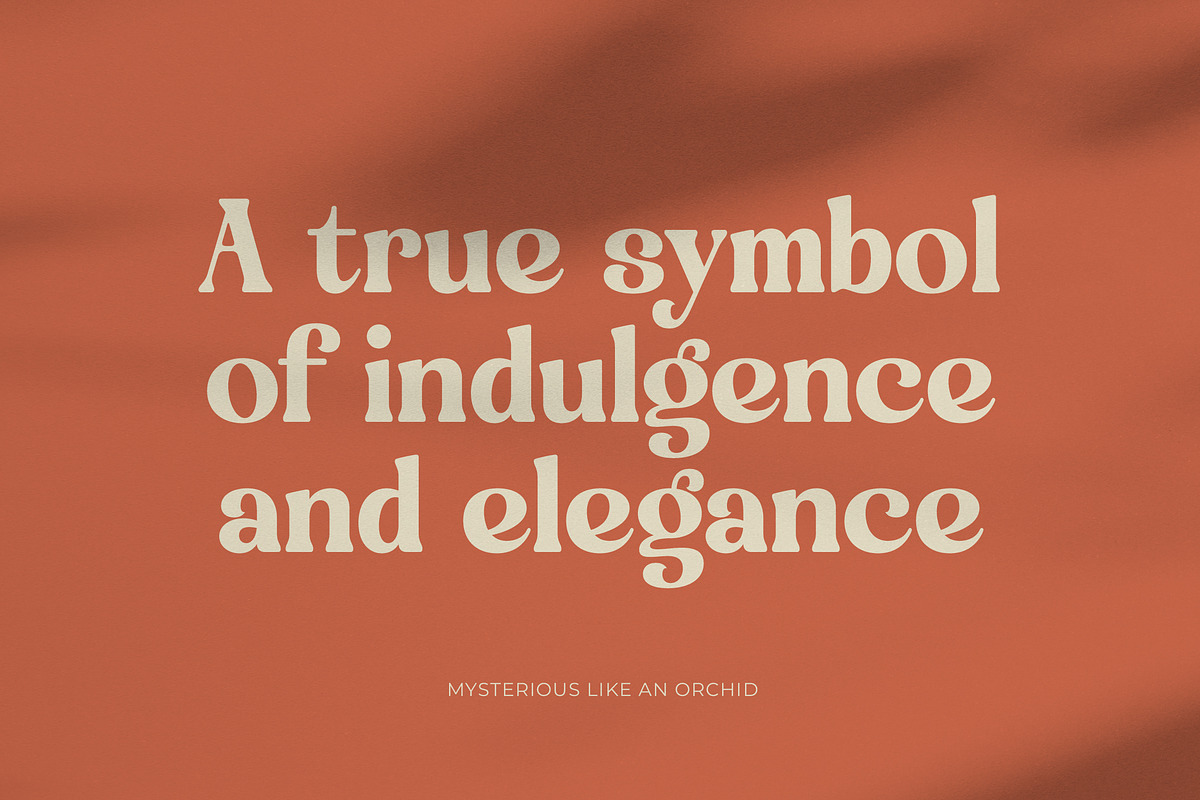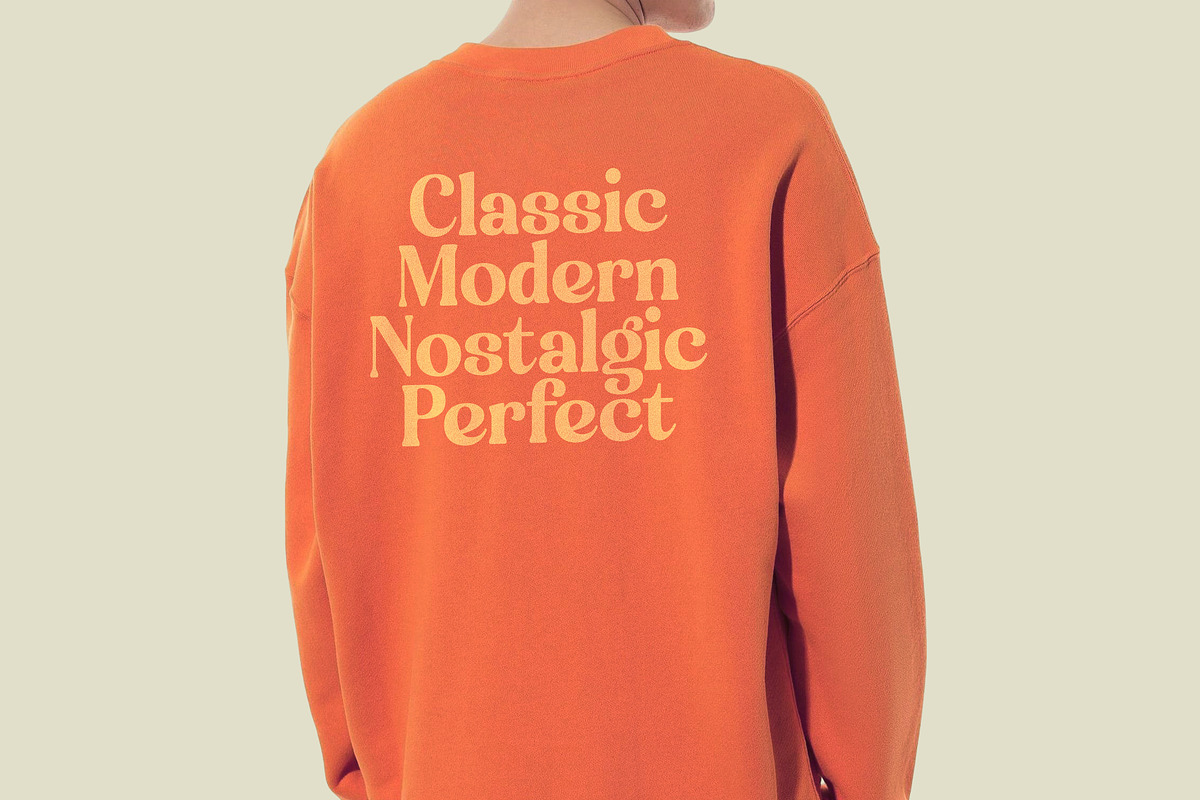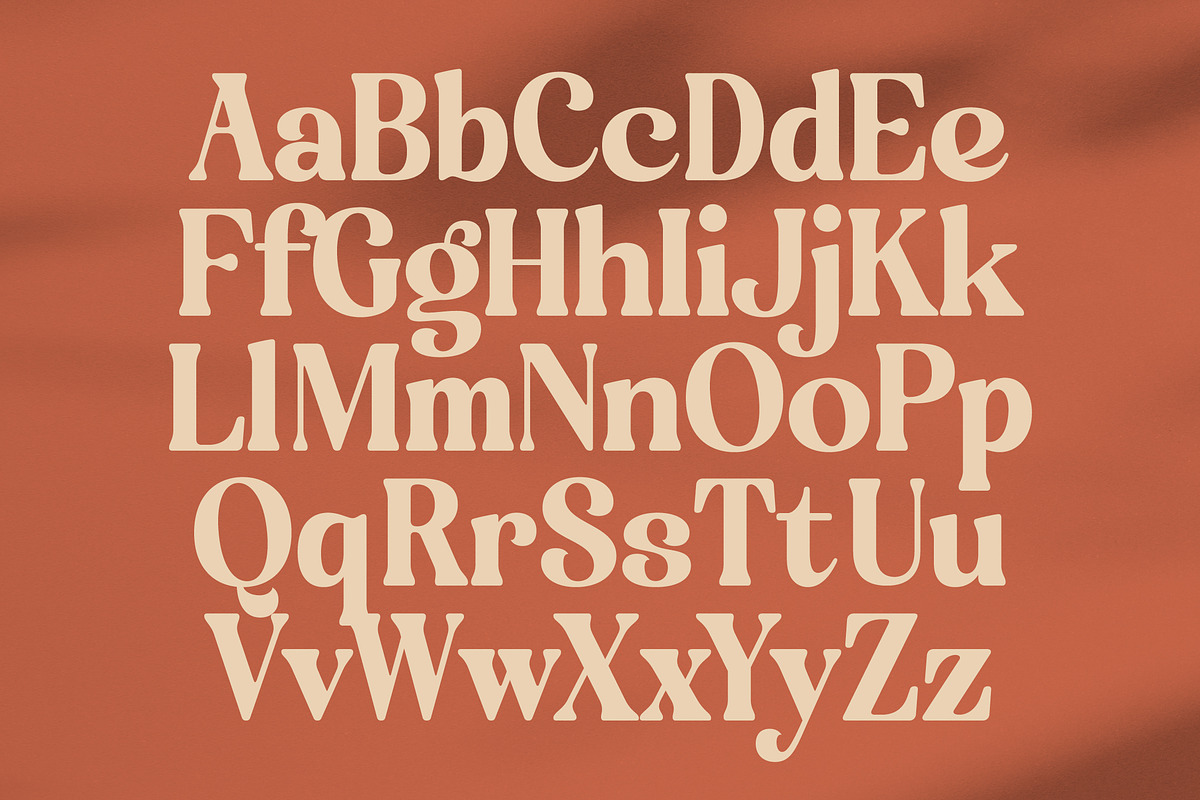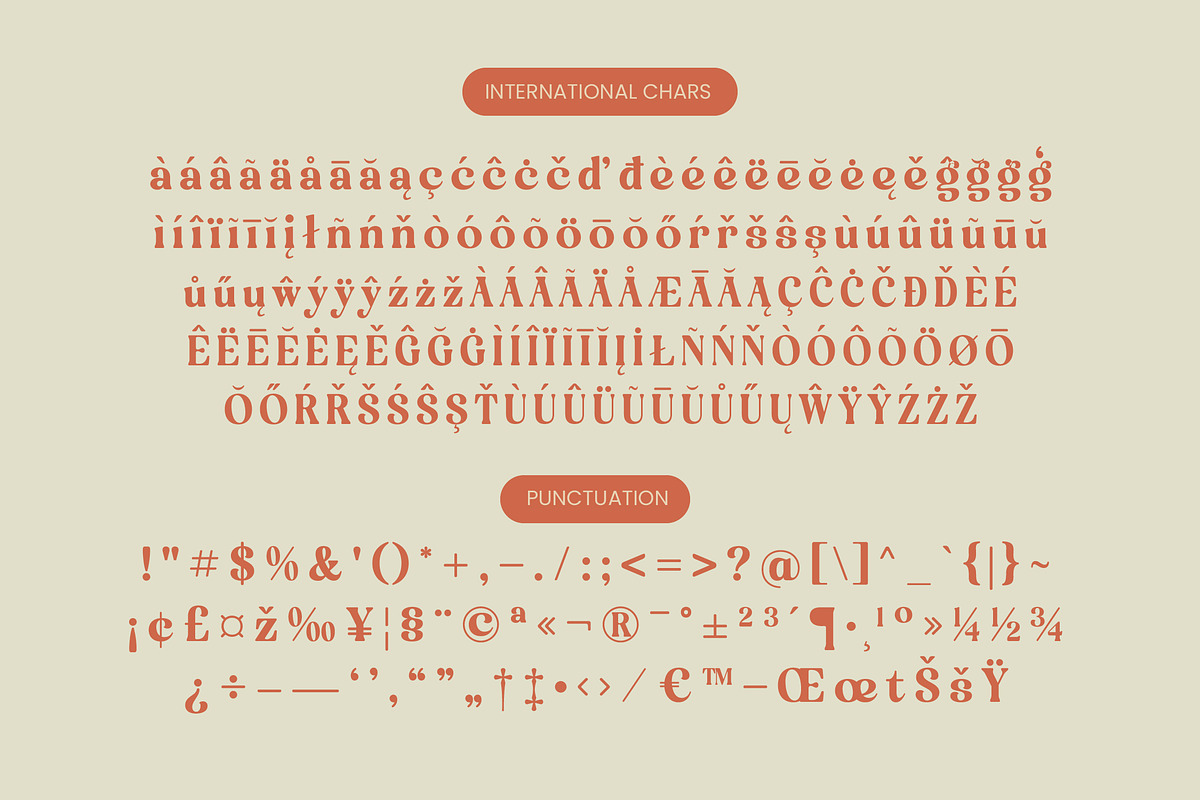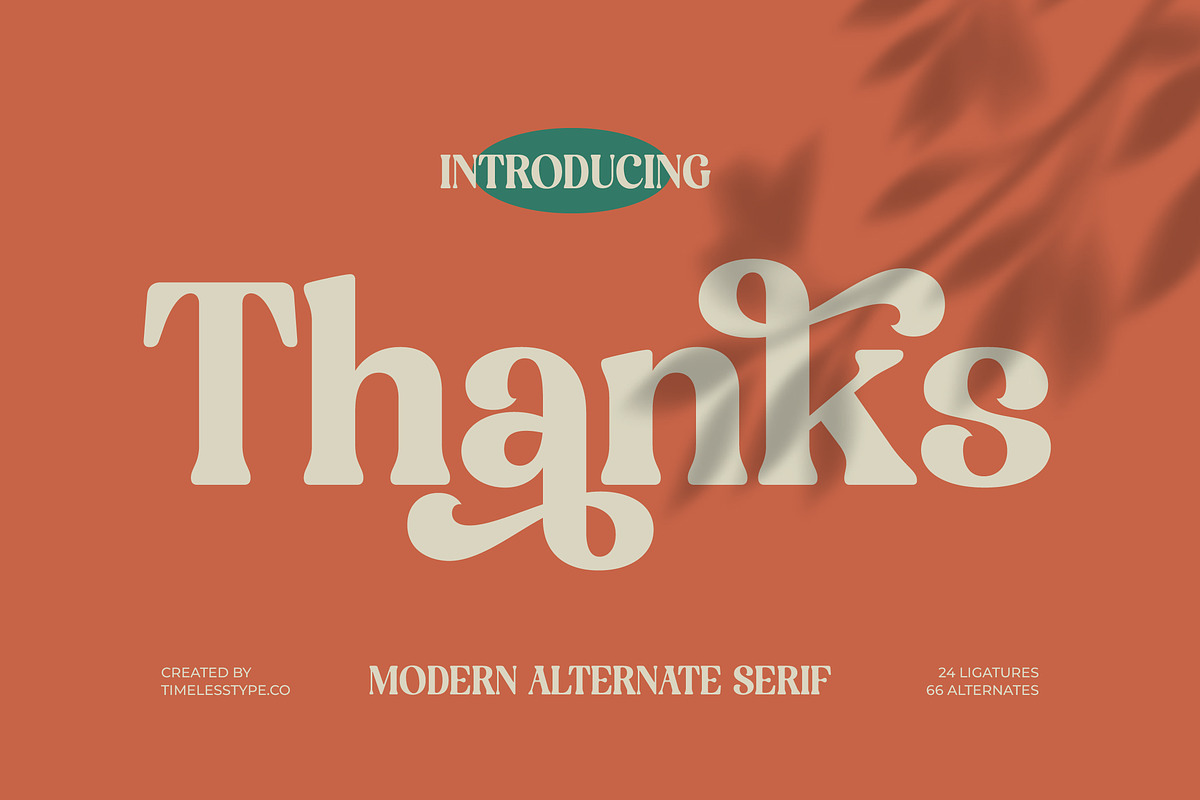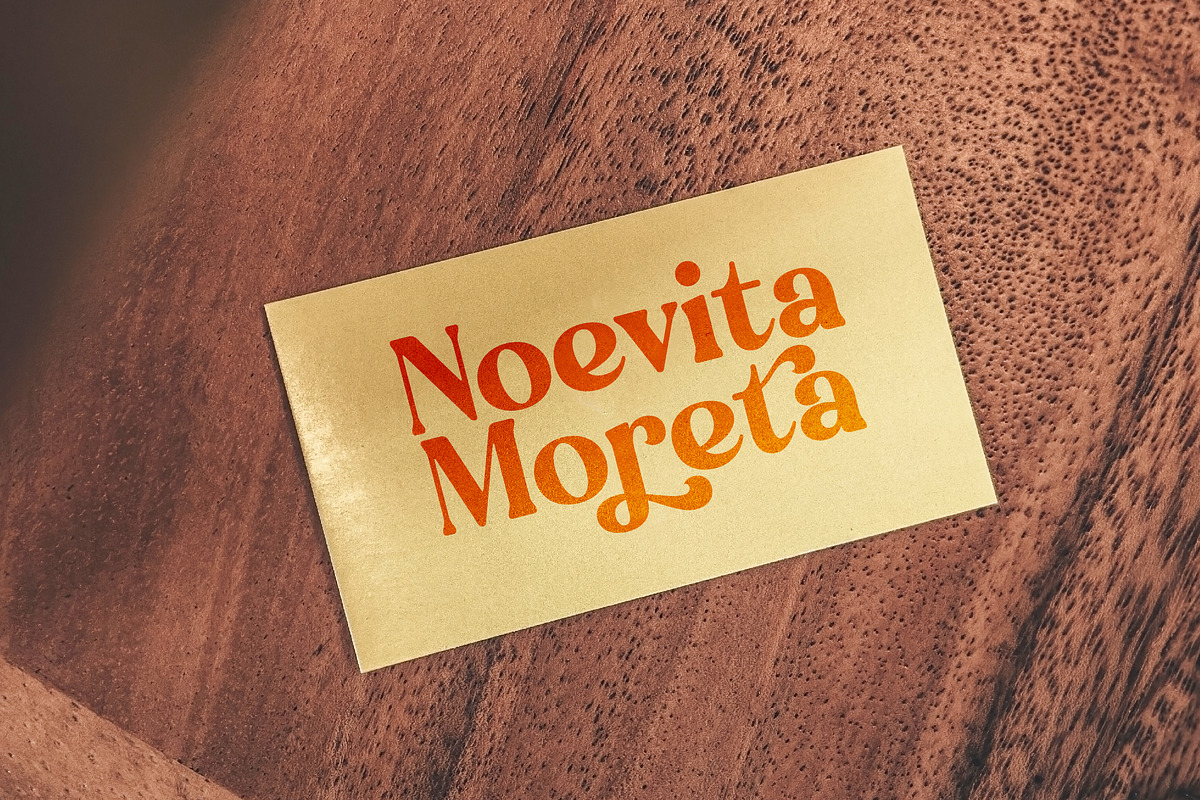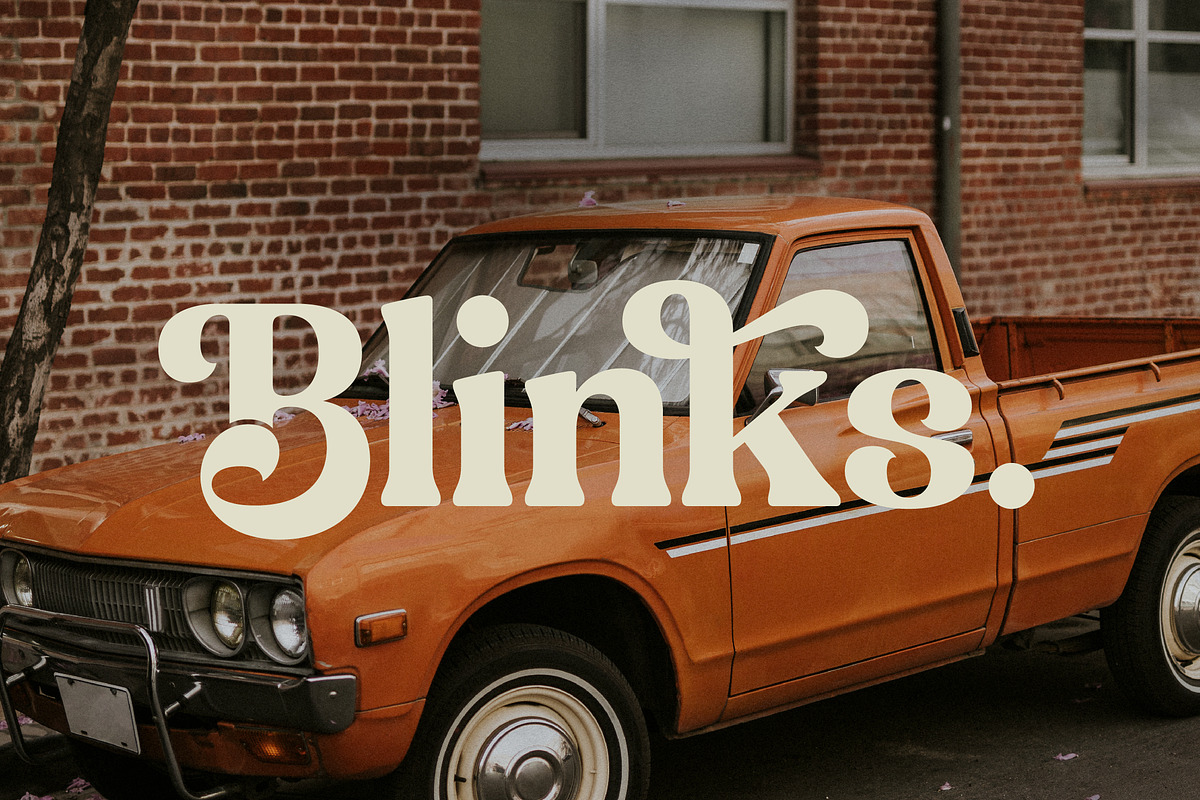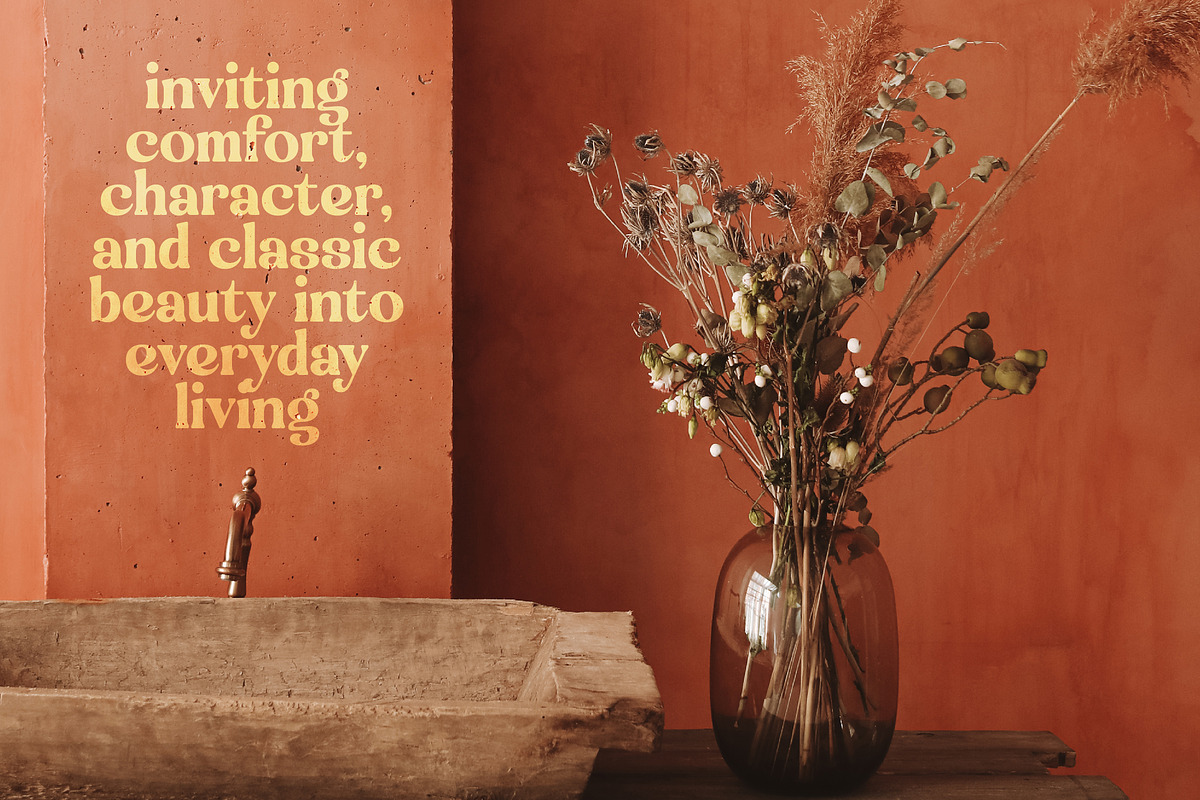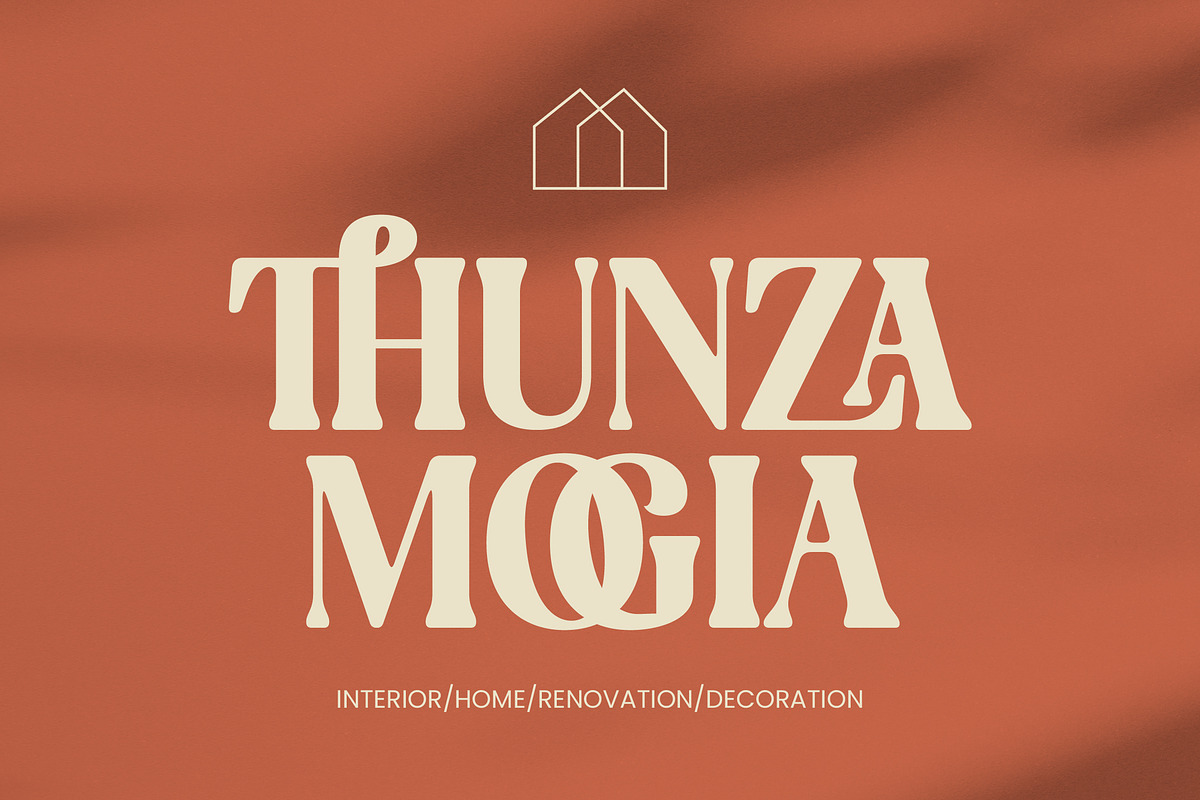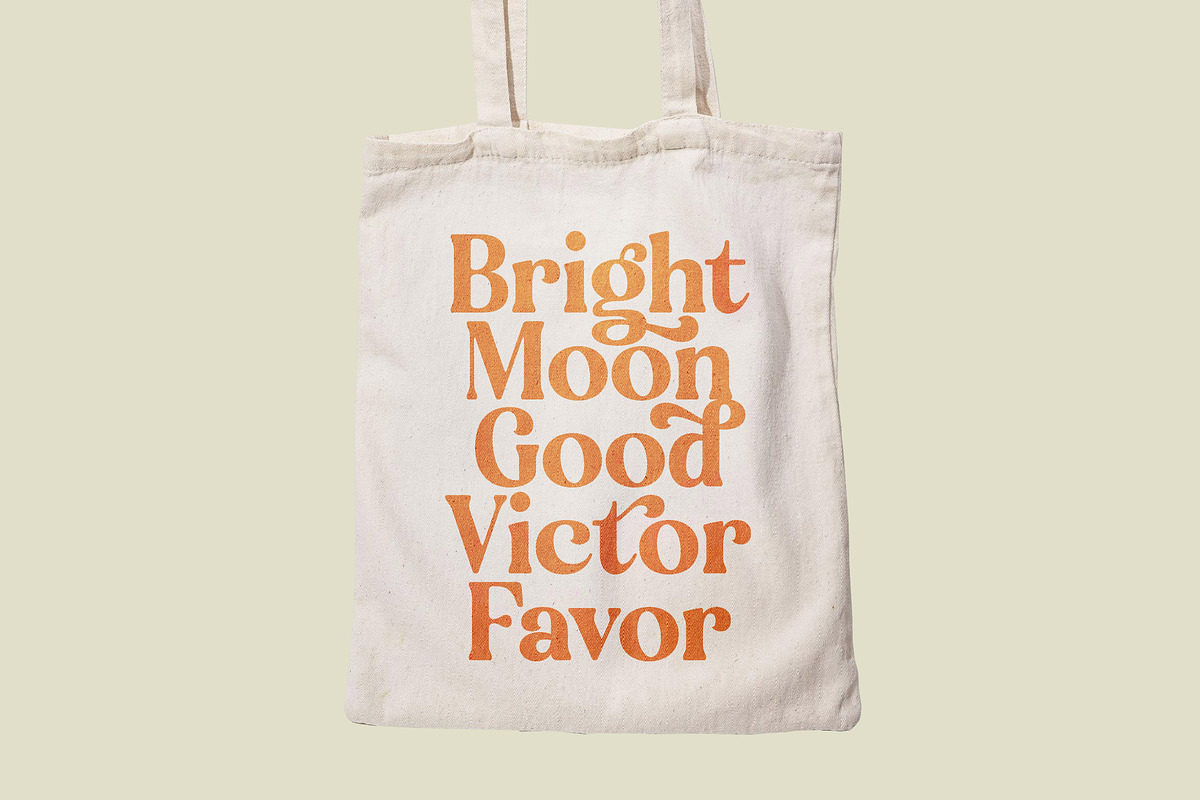
Engray Danton Modern Serif Font
Elevate your creative vision with Engray Danton, a masterclass in sophisticated typography that balances timeless elegance with contemporary flair. This typeface is designed to command attention while maintaining a whisper of classic grace in every stroke.
Inspired by the golden era of high-fashion magazine covers and vintage art deco signage, this font captures a unique intersection of nostalgia and futuristic minimalism. The rhythmic curves and sharp terminals create a visual atmosphere that feels both lived-in and refreshingly new.
As a modern serif display choice, this typeface delivers unparalleled luxury typography through its high-contrast serif construction and fluid letterforms. It is an essential editorial font for designers seeking maximum branding impact in a crowded marketplace.
Staying ahead of the modern serif trend, this typeface embraces the movement toward character-driven typography that prioritizes personality over plainness. It perfectly complements the current wave of editorial display fonts used in high-end lifestyle branding.
This versatile family is an ideal solution for logo design, corporate branding, and high-concept editorial layouts. Whether applied to luxury packaging, romantic wedding stationery, or avant-garde fashion campaigns, it brings a polished edge to any project.
The package is fully loaded with a rich set of ligatures and alternates that allow for custom-tailored text designs. With beautiful swashes, comprehensive multilingual support, and a wide range of international characters, your creative reach is truly global.
- Ligature 24 Alternate 66